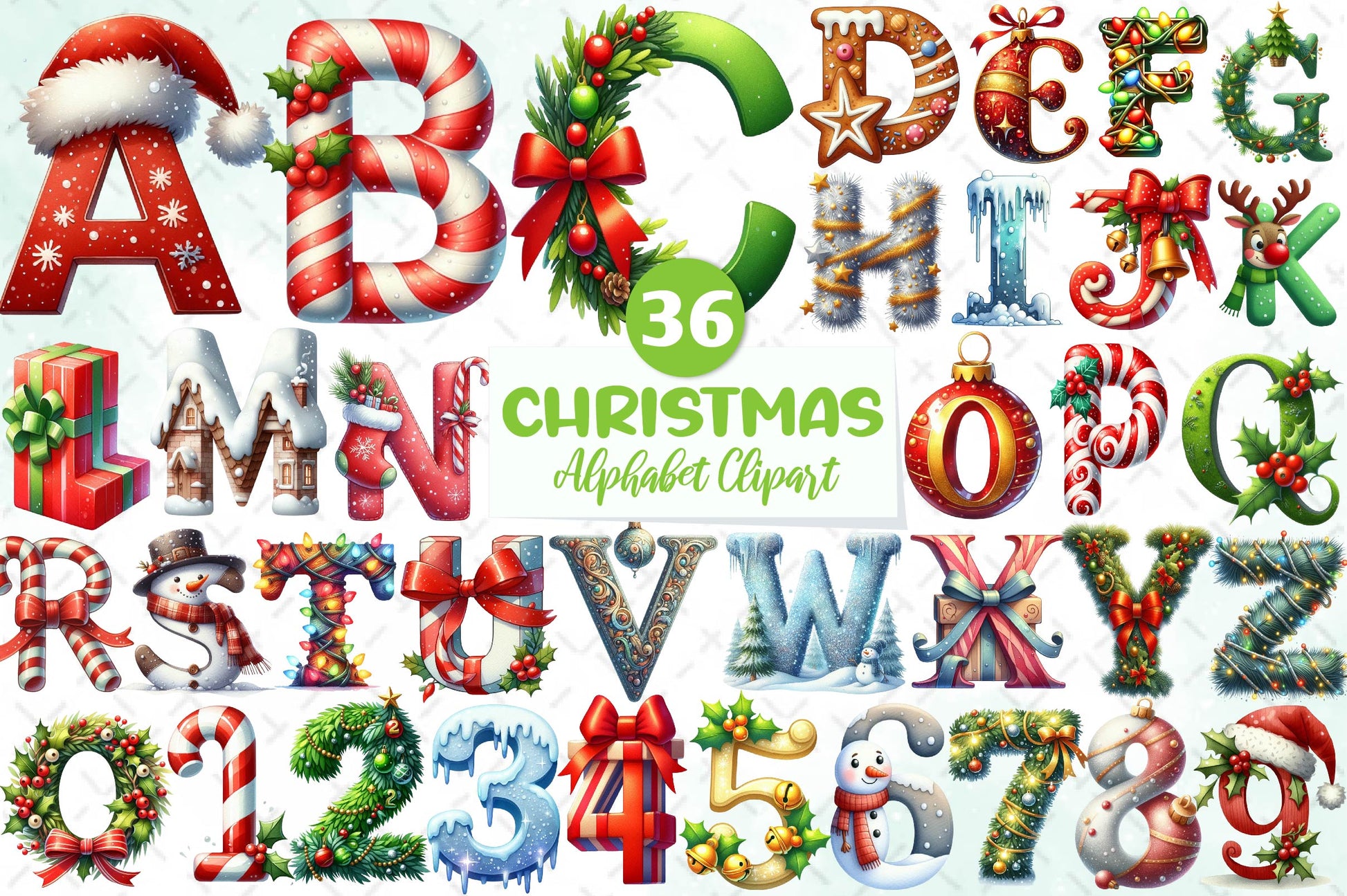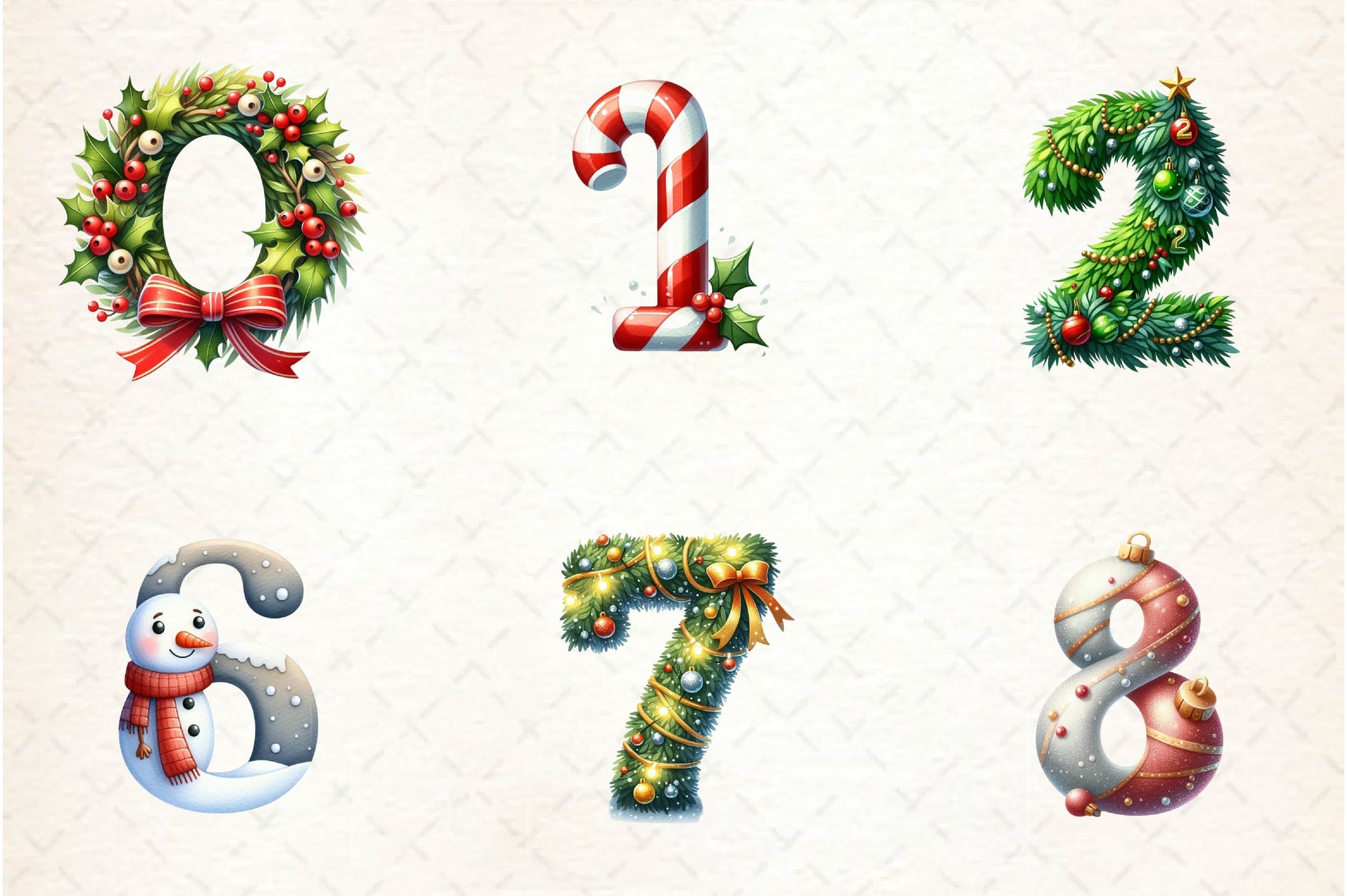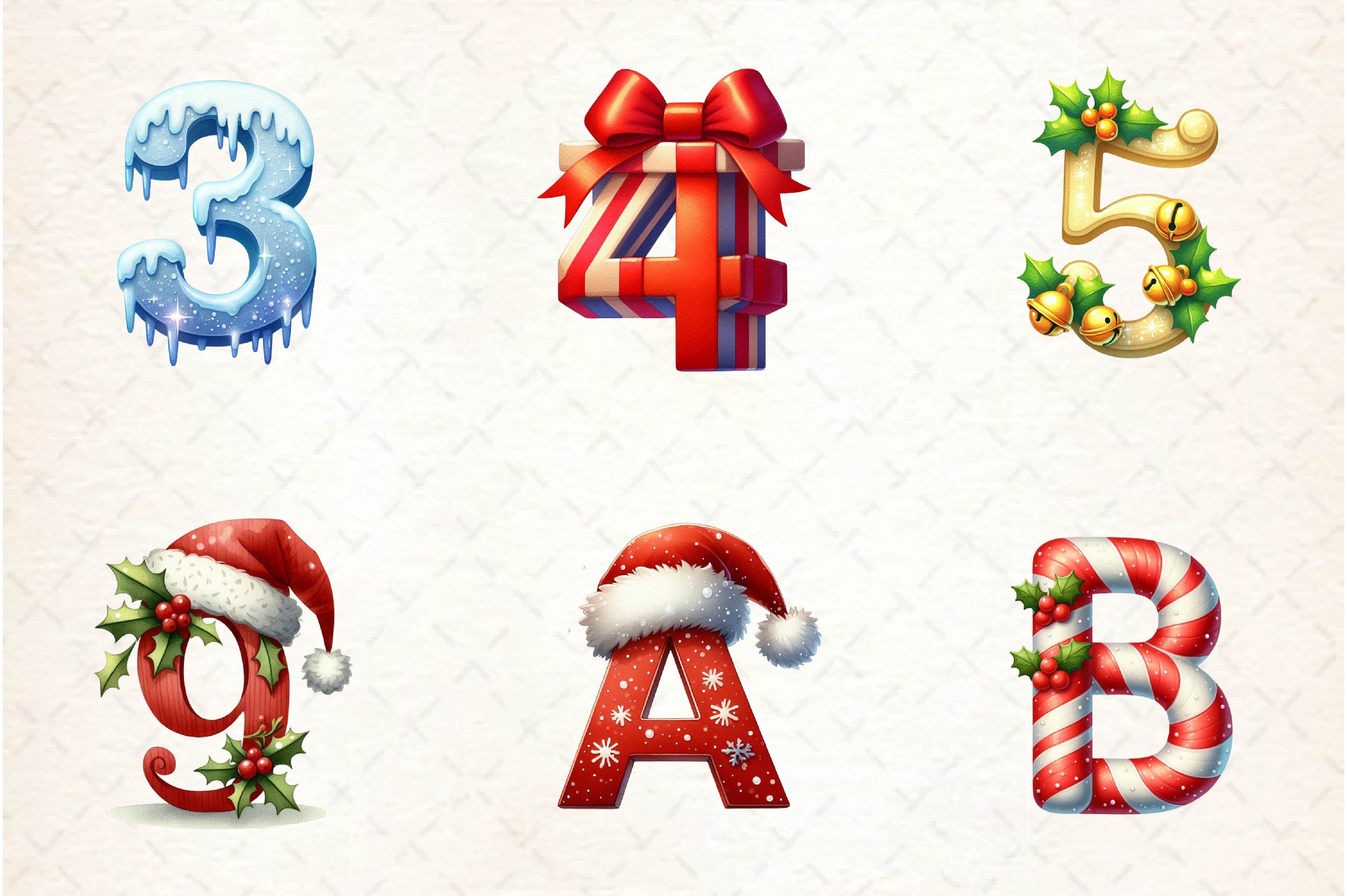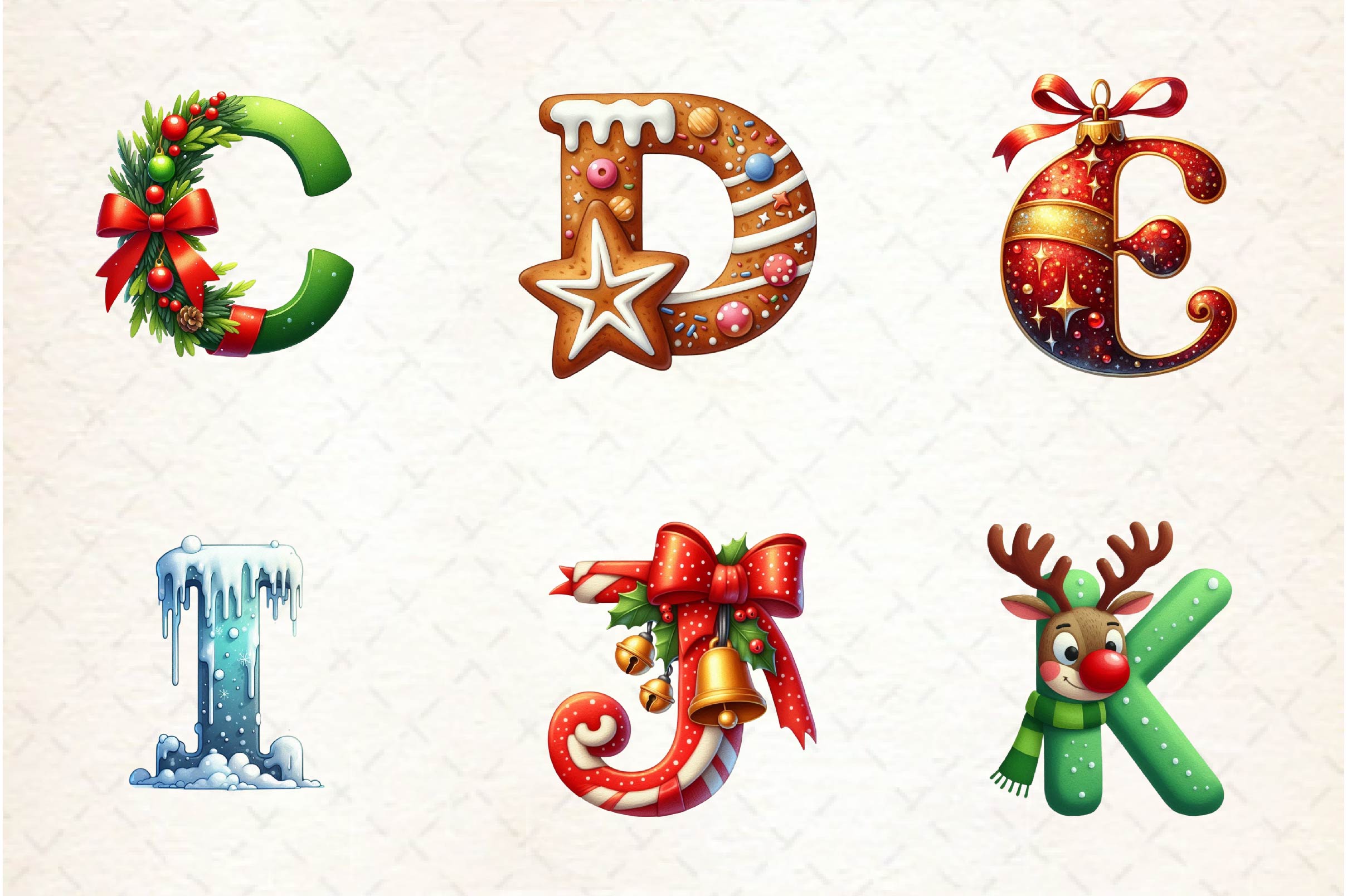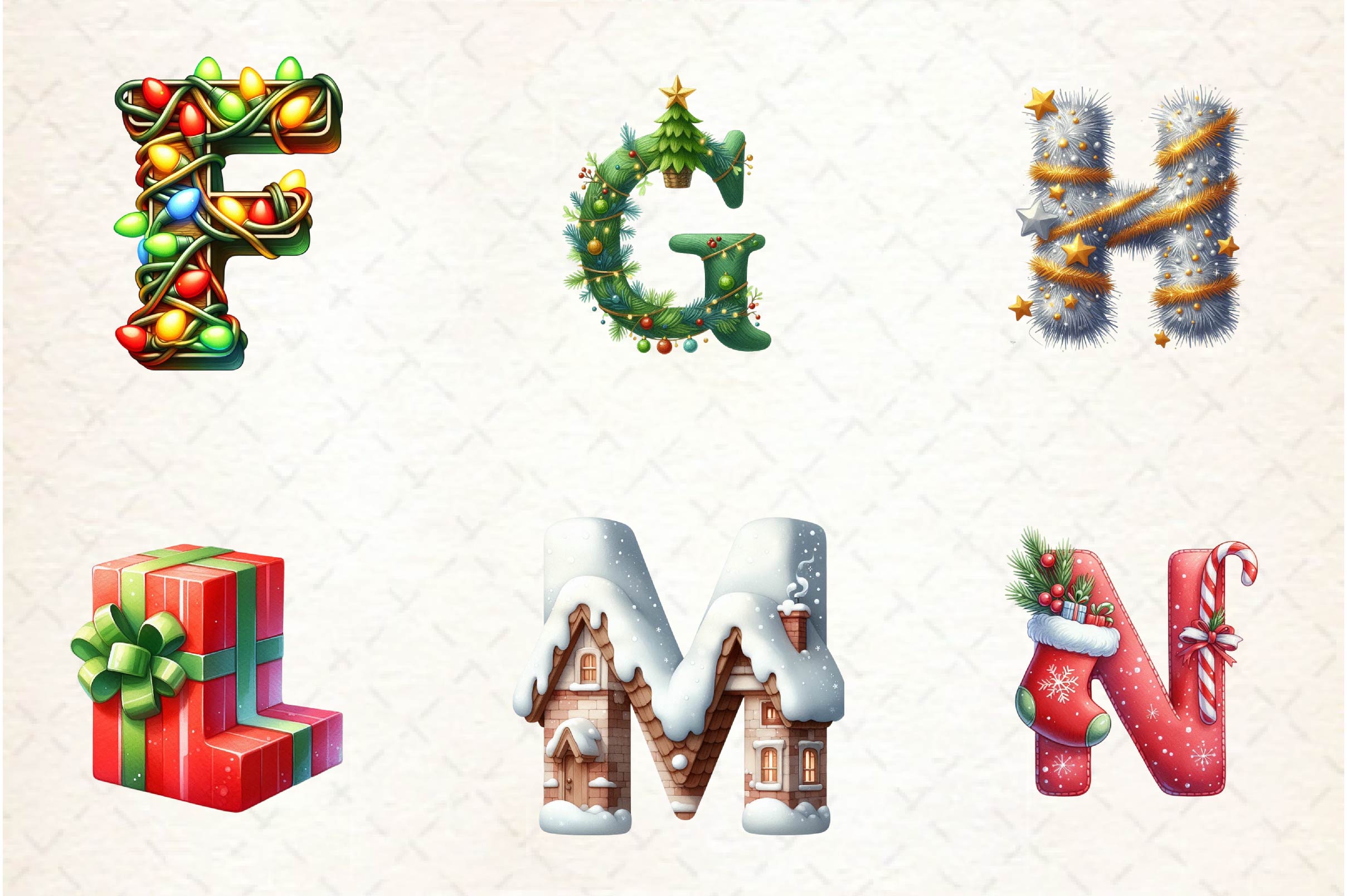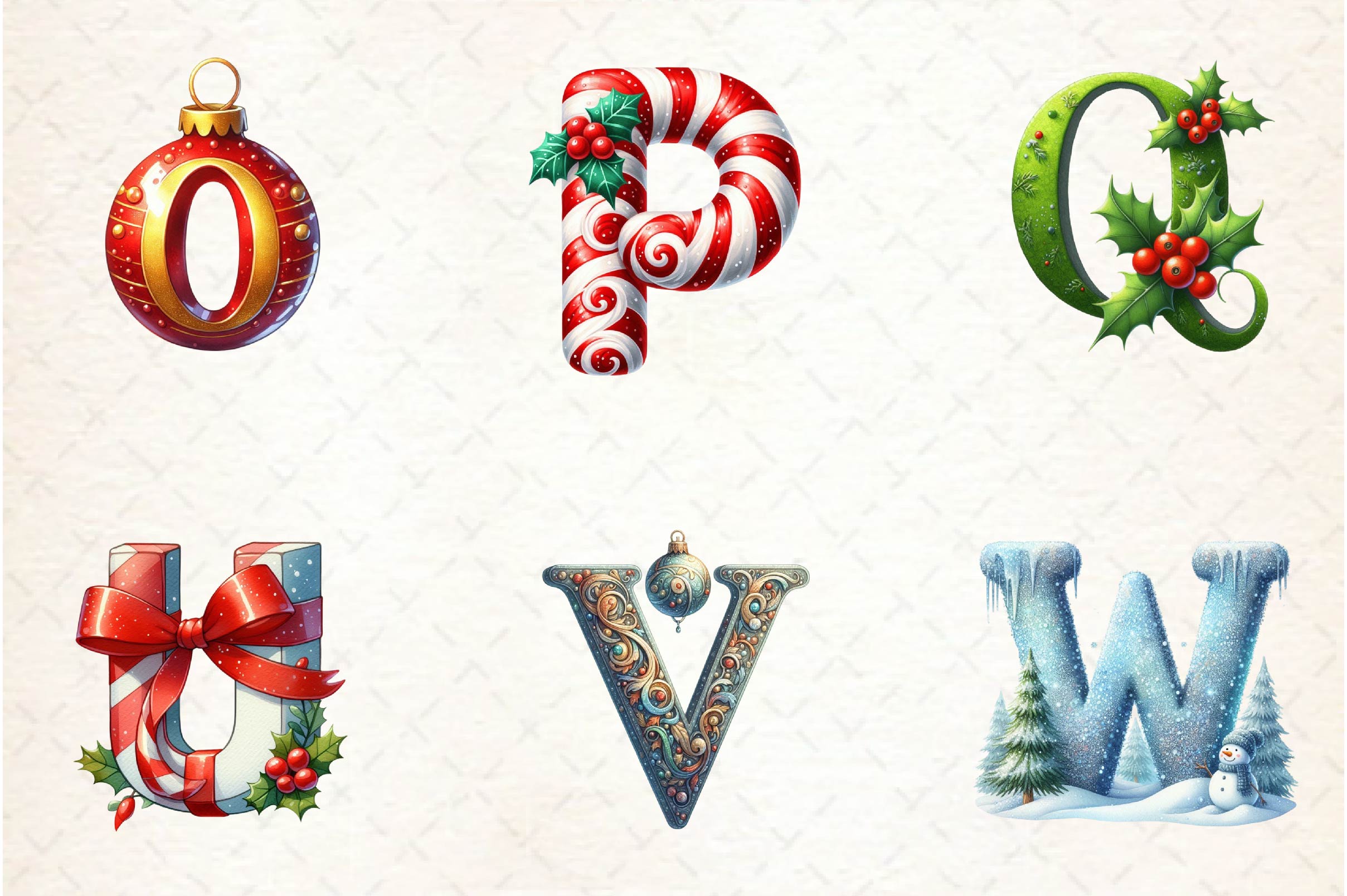
Holiday Typeface And Alphabet Clipart Bundle
Spell with this Holiday Typeface And Alphabet Clipart Bundle, featuring festive letter designs, perfect for holiday alphabet crafts.